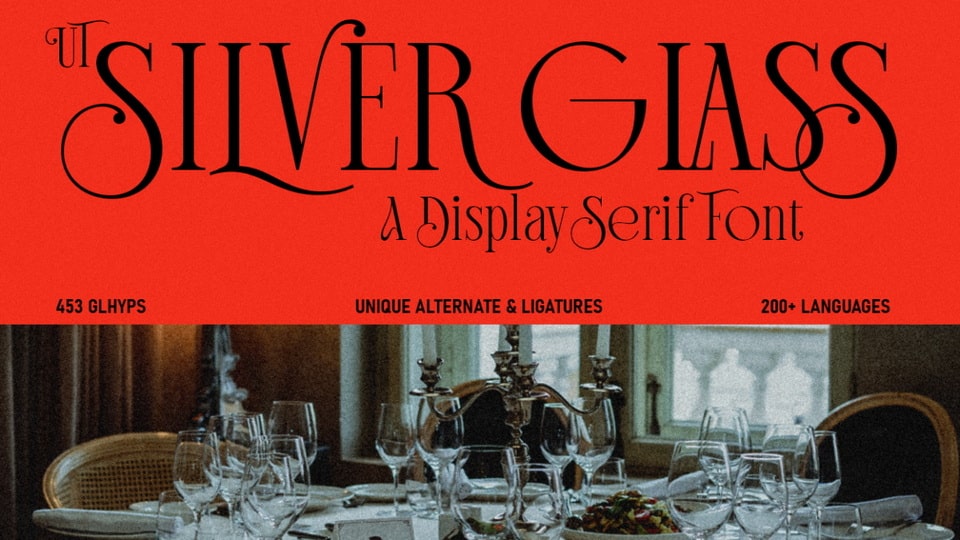
Download UT Silver Glass font, an elegant and sophisticated serif typeface that brings a modern twist to classic luxury with its graceful curves and refined strokes.
Designer: Universitype Foundry